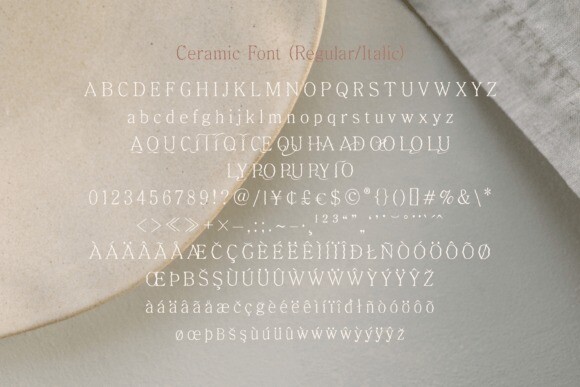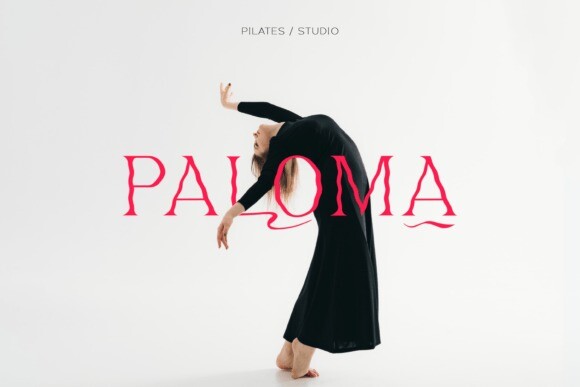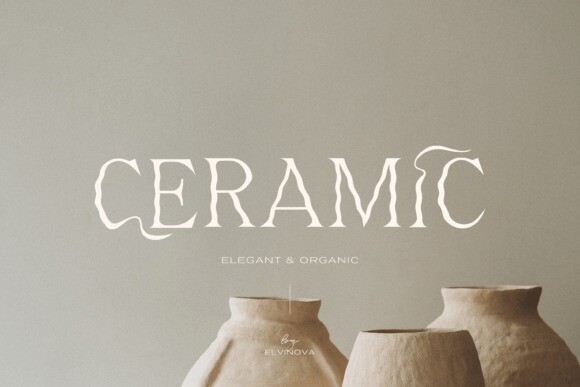
Ceramic Font
Ceramic Font is a modern and elegant font with beautiful curves that add a touch of sophistication to your text. Its smooth lines and stylish design make it perfect for projects that require a contemporary and refined look. Whether you’re crafting invitations, logos, or other designs, Ceramic’s graceful curves bring a sense of modern beauty to your work. Choose Ceramic for a chic and timeless aesthetic that effortlessly elevates your typography.